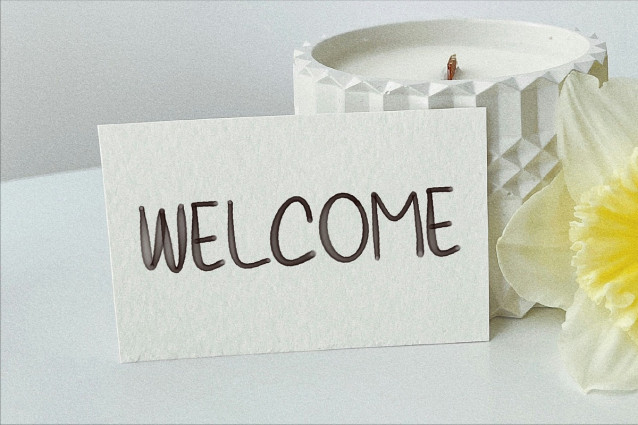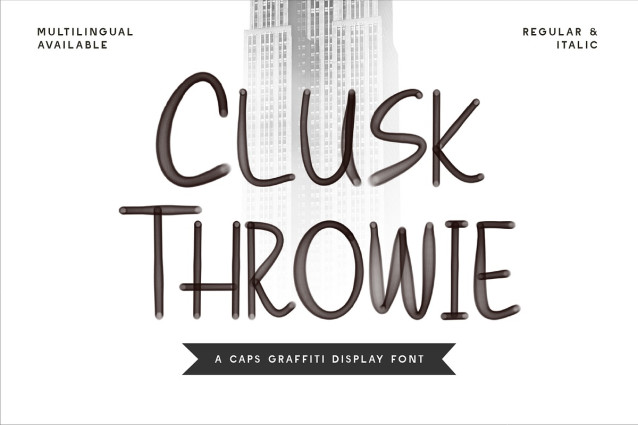
CF Clusk Throwie Font
CF Clusk Throwie Font, a caps-only graffiti display font inspired by authentic street art and tag culture. With its spray-painted edges, marker-style strokes, and rebellious attitude, this font delivers an unapologetic dose of urban grit and underground energy. Whether you’re designing for album covers, apparel, extreme sports branding, posters, urban events, or edgy social content, CluskThrowie brings an instant hit of graffiti authenticity and raw expression. Available in Regular and Italic styles, it’s built for creatives who want to make a statement.